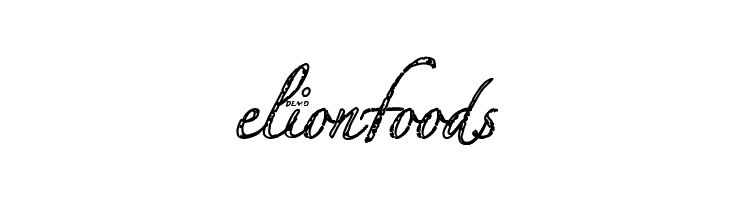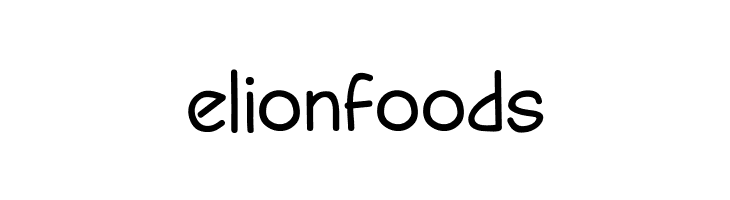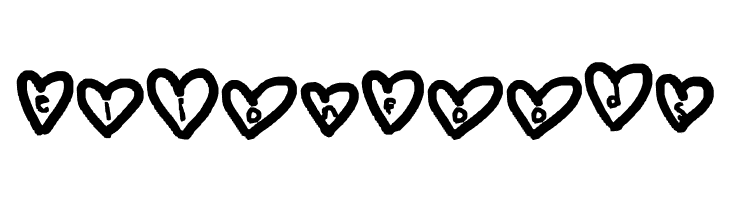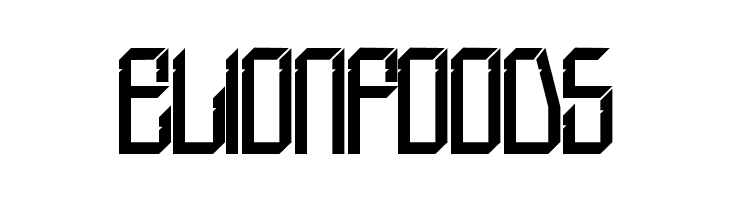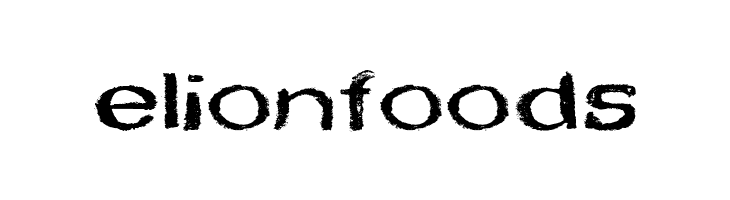
A playful, rounded font with smooth curves and a casual, friendly appearance.
A bold, angular font with a futuristic and industrial design.
An ornate and flowing script font with elaborate swirls and elegant lines.
A dynamic, brush-like font with an expressive, hand-drawn style.
A decorative font with intricate flourishes and artistic embellishments.
A bold, hand-drawn font with sharp, angular strokes and a dynamic, graffiti-like style.
A textured, hand-drawn font with a bold and artistic style.